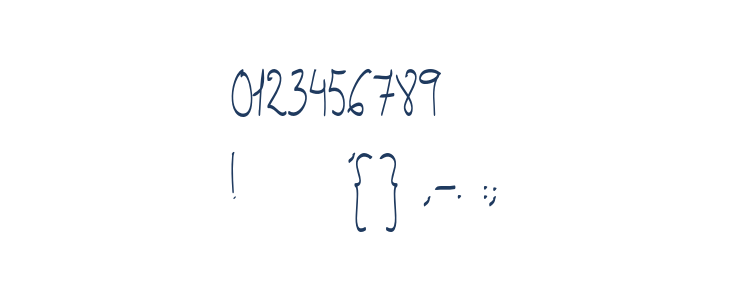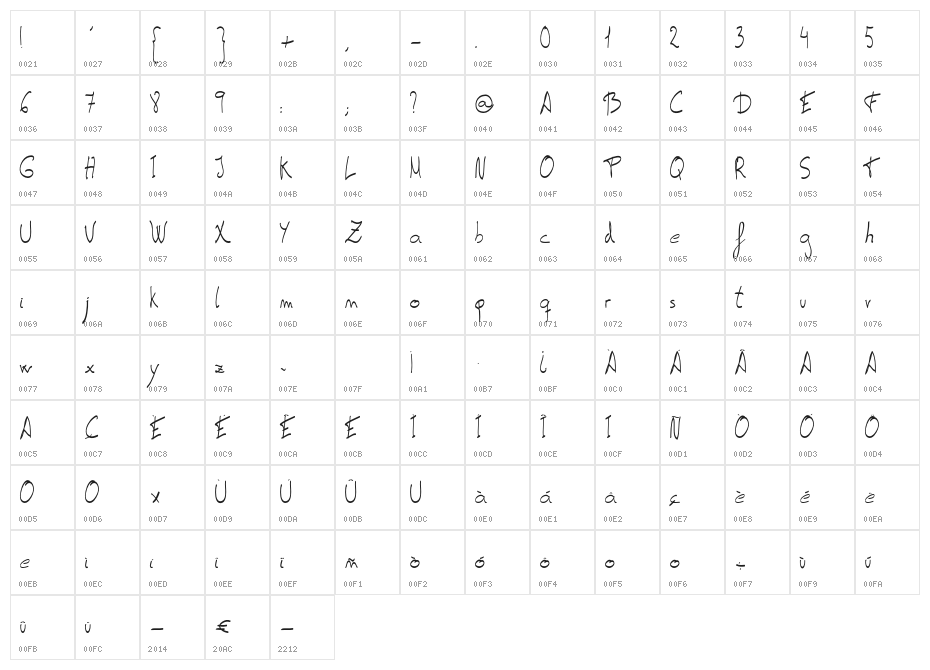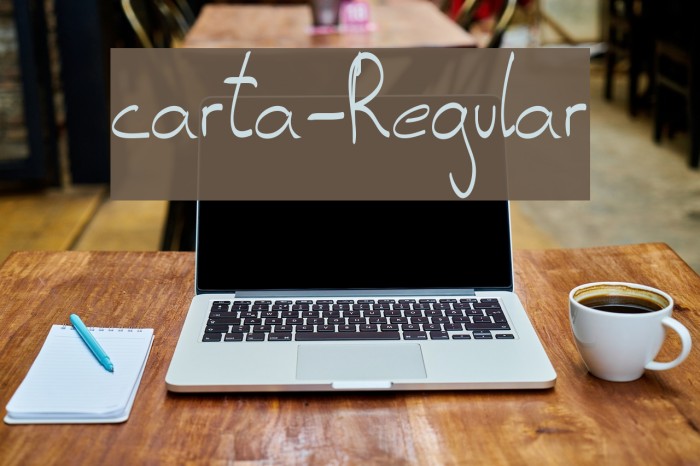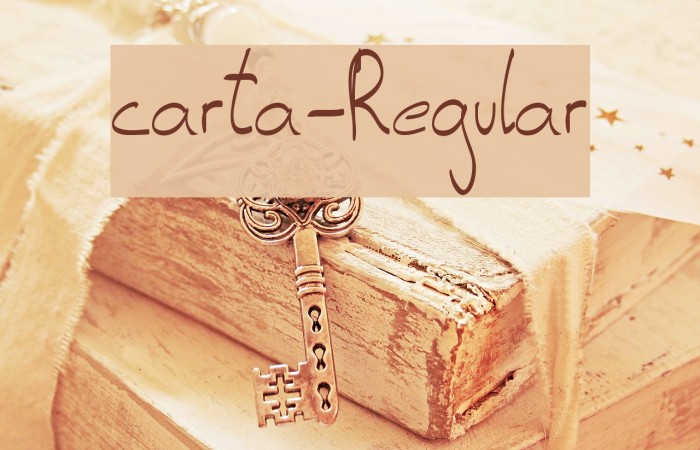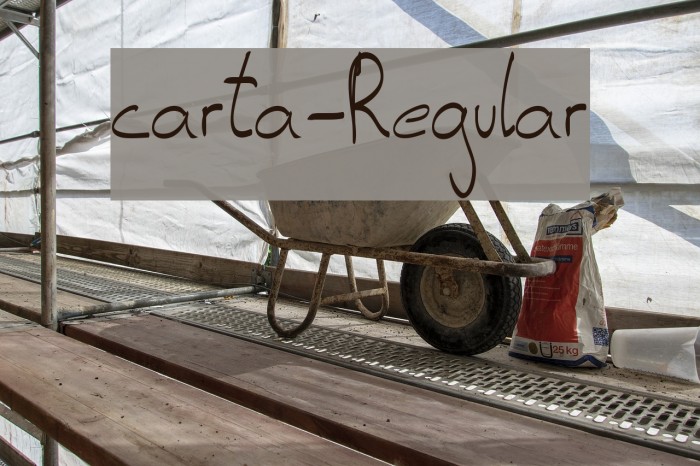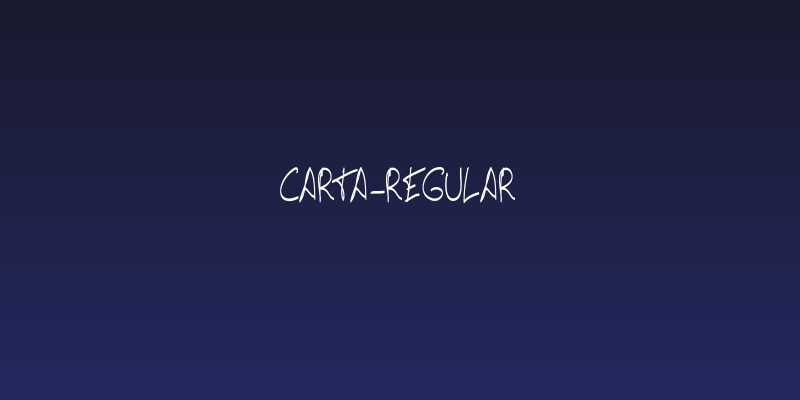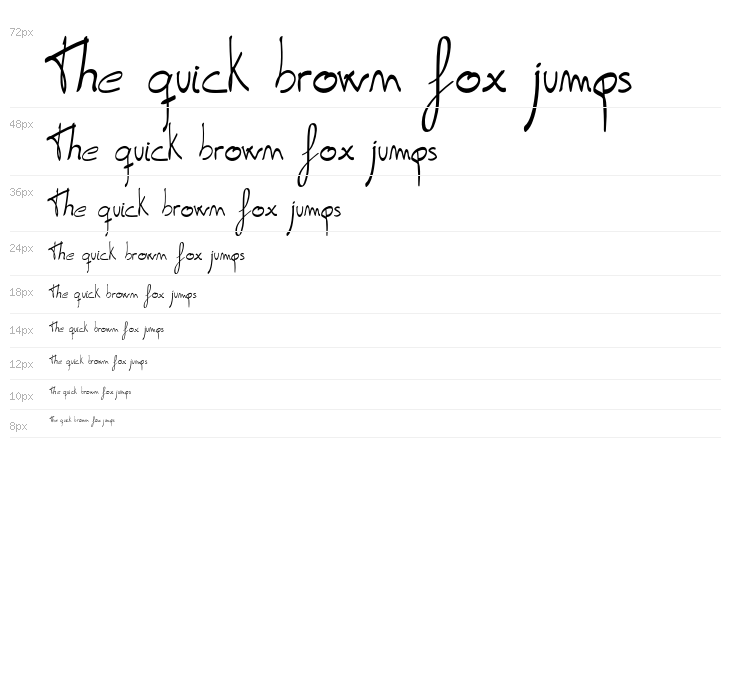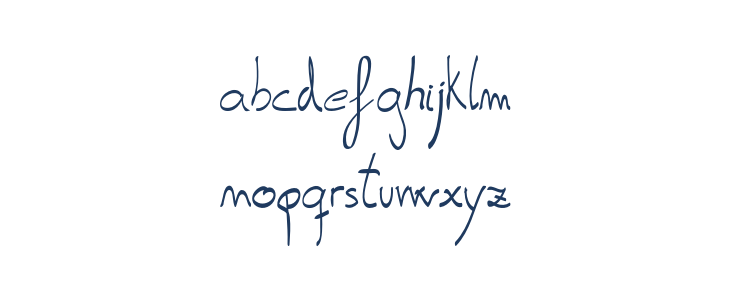
carta-Regular Font
carta-Regular Description
This font exhibits a playful and informal handwritten style, characterized by its irregular strokes and whimsical letterforms. The uppercase letters are tall and slightly narrow, with varying stroke thickness that adds a dynamic feel. The lowercase letters maintain a consistent style, with some letters featuring loops and curves that enhance the casual aesthetic. The numerals are distinct and maintain the same playful quality, making them easily recognizable. Special characters are included, each designed with the same informal flair. Overall, this font conveys a sense of creativity and spontaneity, making it suitable for projects that require a personal touch.